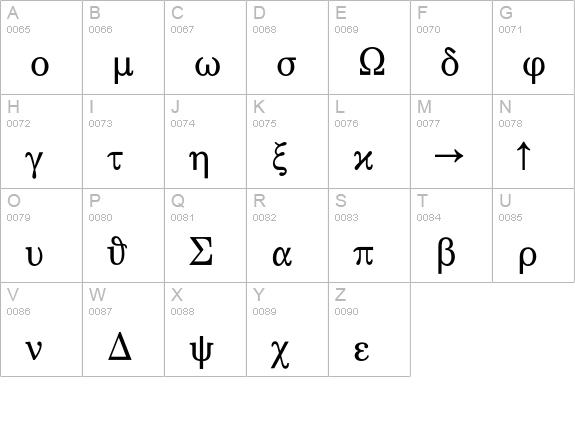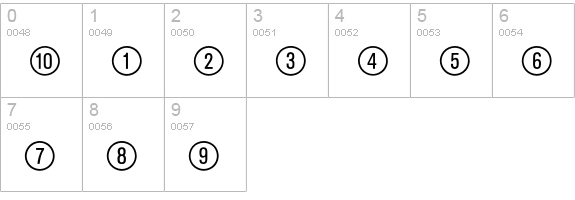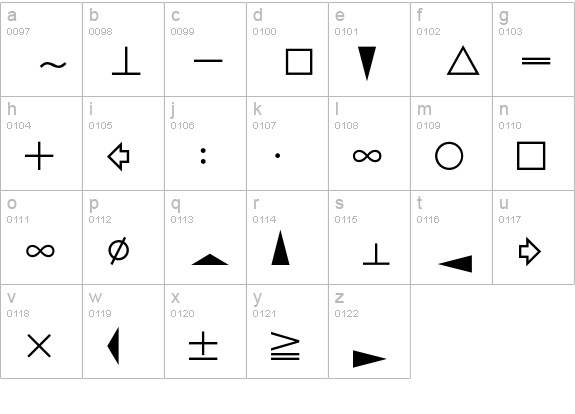
Science Pi Font Details
Introducing Science Pi, a captivating and versatile font that seamlessly combines the elements of science and technology with a touch of elegance. With its sleek and modern design, Science Pi is the perfect choice for any project that requires a sophisticated and professional look. Featuring a unique blend of sharp lines and smooth curves, this font captures the essence of scientific precision while maintaining a sense of creativity and innovation. Its clean and well-defined letterforms make it easy to read, whether it's used for headlines, body text, or even intricate scientific diagrams. But what truly sets Science Pi apart is its versatility. This font effortlessly adapts to any design concept, from futuristic and high-tech to minimalist and classic. Its wide range of weights and styles allows for endless possibilities, making it an essential tool for designers, scientists, educators, and anyone in need of a font that both captivates and communicates effectively. And the best part? Science Pi is absolutely free to download at FontsMarket.com. This means that you can explore and unleash your creativity without any limitations or costs. Whether you're a student working on a research paper, a scientist publishing groundbreaking findings, or a designer crafting cutting-edge visuals, Science Pi is here to elevate your work to new heights. So why wait? Experience the power of Science Pi and revolutionize your projects today. Download this remarkable font for free at FontsMarket.com and discover a world of endless possibilities.